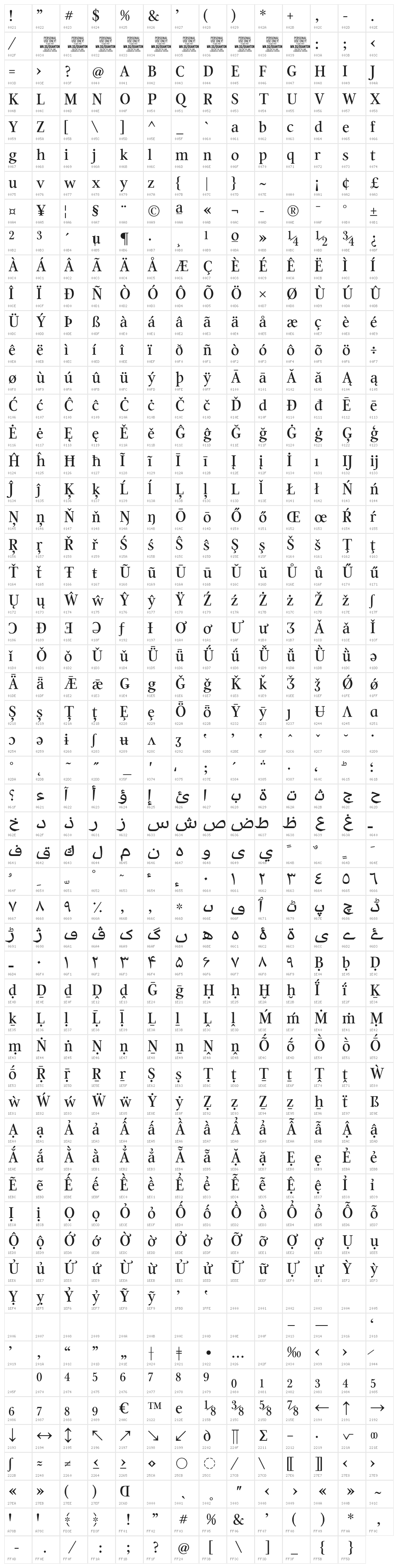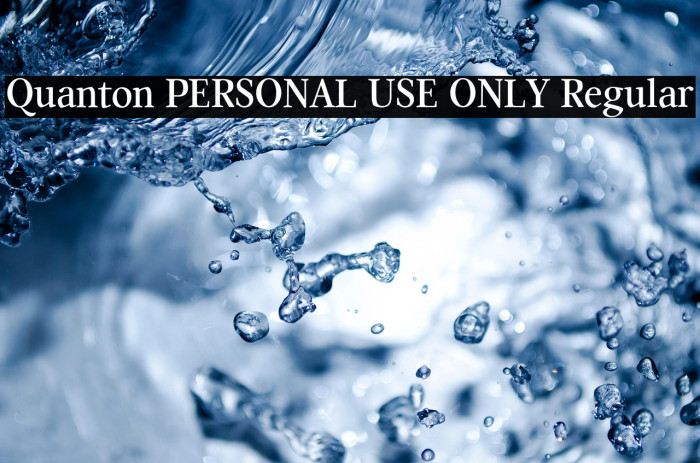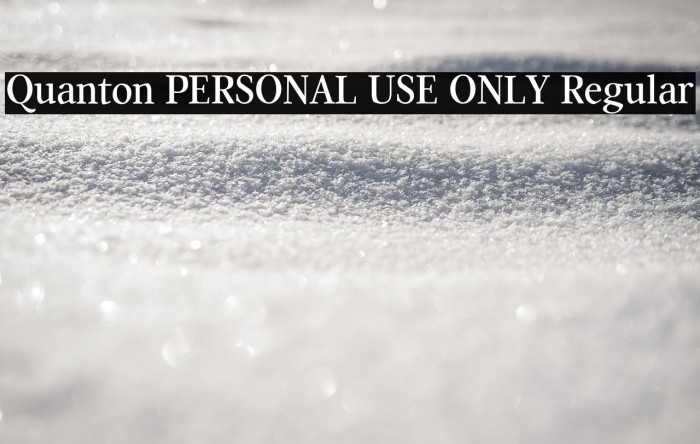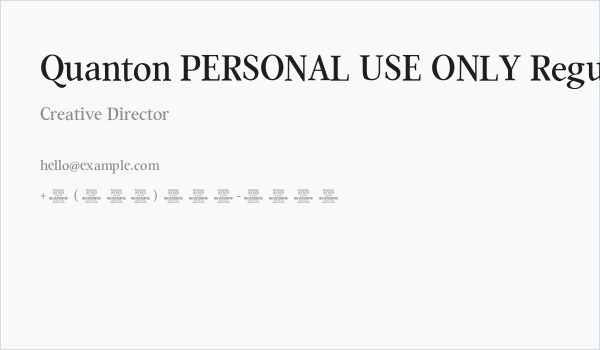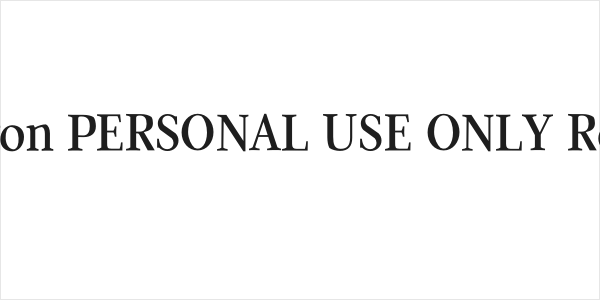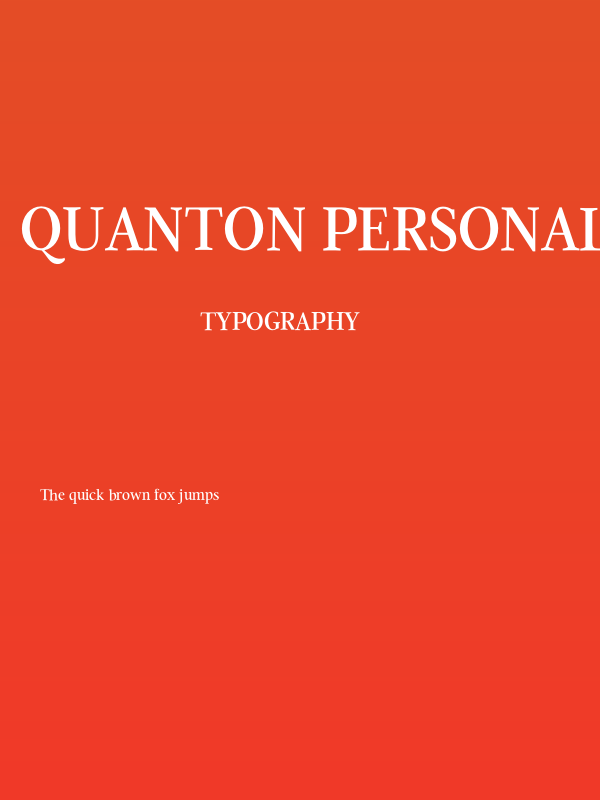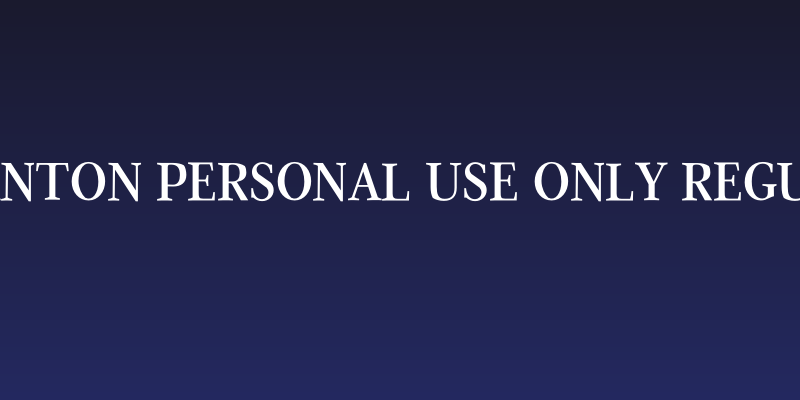
Quanton PERSONAL USE ONLY Regular Font
Quanton PERSONAL USE ONLY Regular Description
This font features a classic serif style with a strong presence and elegant curves. The uppercase letters are bold and commanding, while the lowercase letters maintain a refined and sophisticated appearance. The serifs are pronounced, adding a touch of tradition and formality. The numbers are clear and well-defined, making them suitable for various applications. Special characters are included, providing versatility for different design needs. The overall design is balanced, with a medium contrast in stroke thickness, ensuring readability and aesthetic appeal.
| Proposed Projects | Ideal for editorial design, book covers, formal invitations, and branding projects that require a touch of elegance and tradition. |